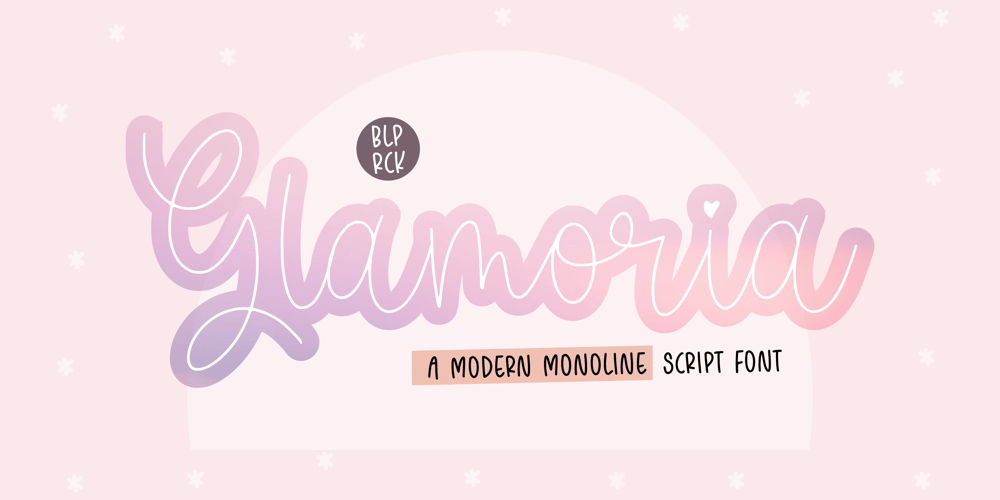
Glamoria Font Family was designed by Restu Angga and published by Balpirick. Glamoria contains 1 styles and family package options. Glamoria is a Modern Monoline Script Font.Glamoria Script is an enchanting handwritten font. This versatile script font has a wide spectrum of applications ranging from greeting cards to headlines and is guaranteed to add a romantic feel to your next project.Glamoria also multilingual support.Enjoy the font, feel free to comment or feedback, send me PM or email.Thank you!